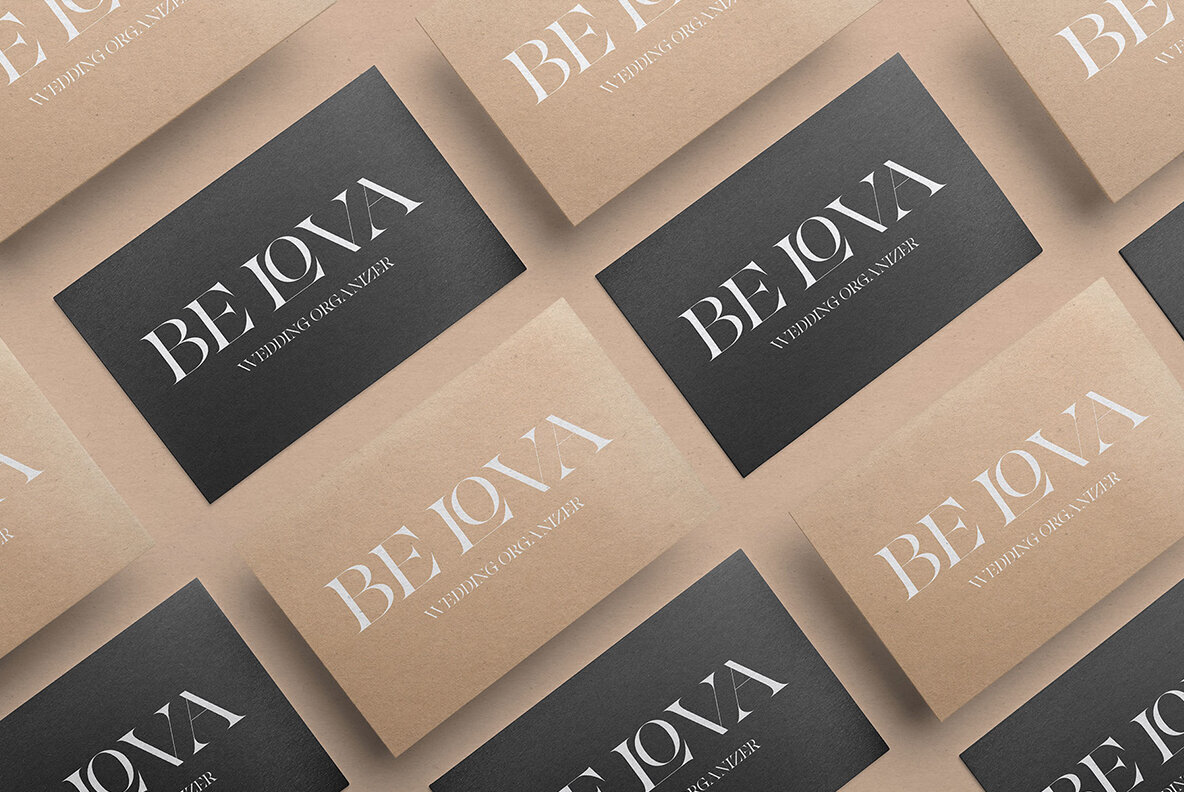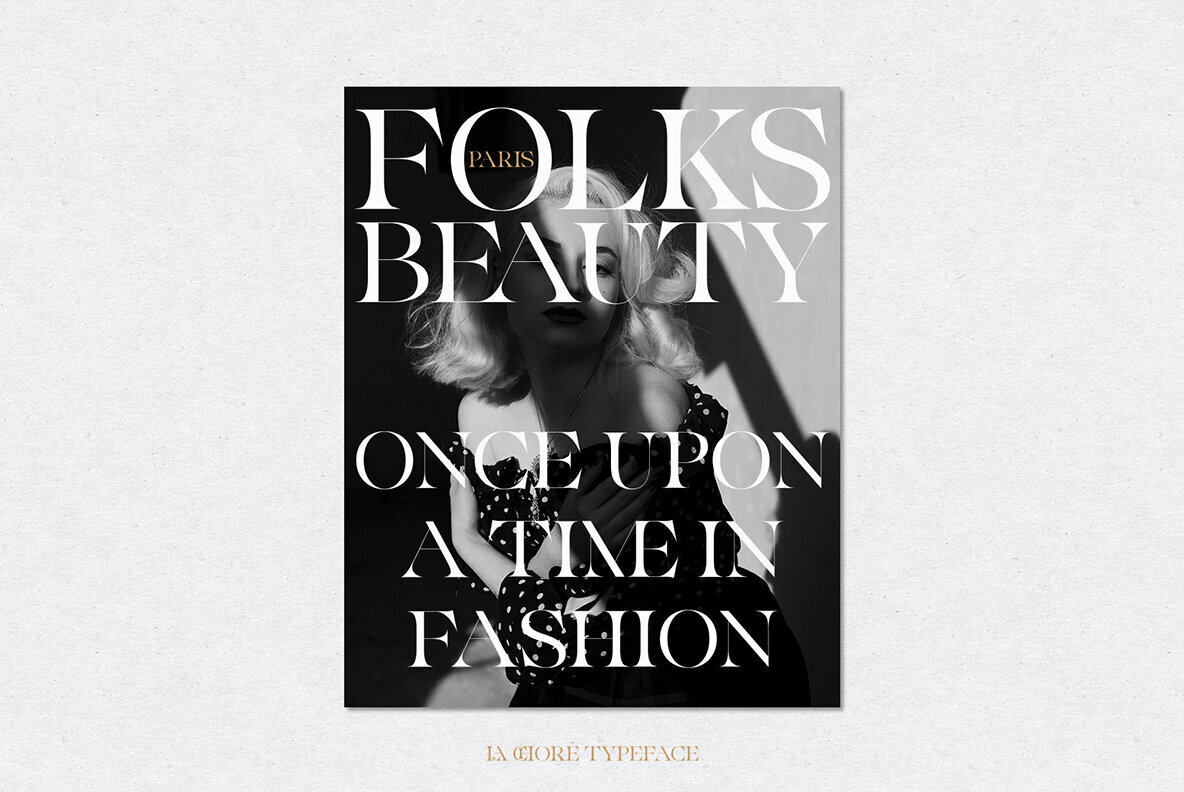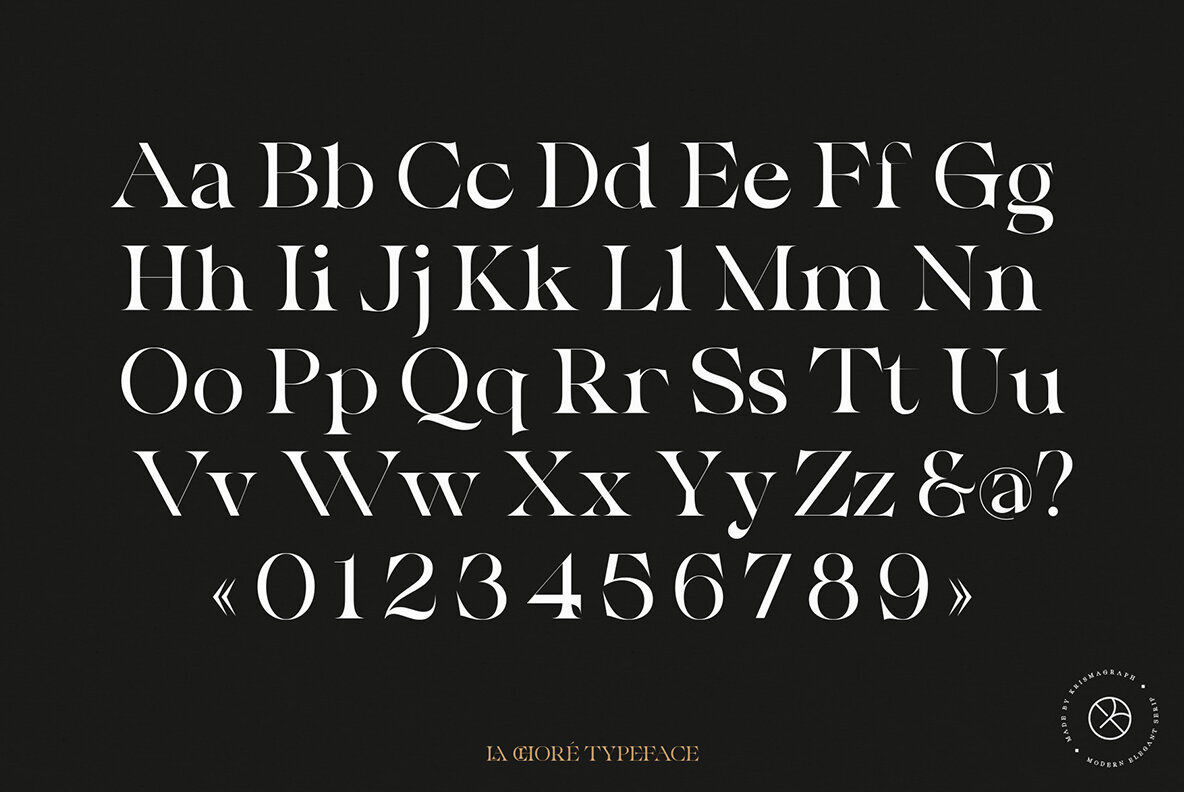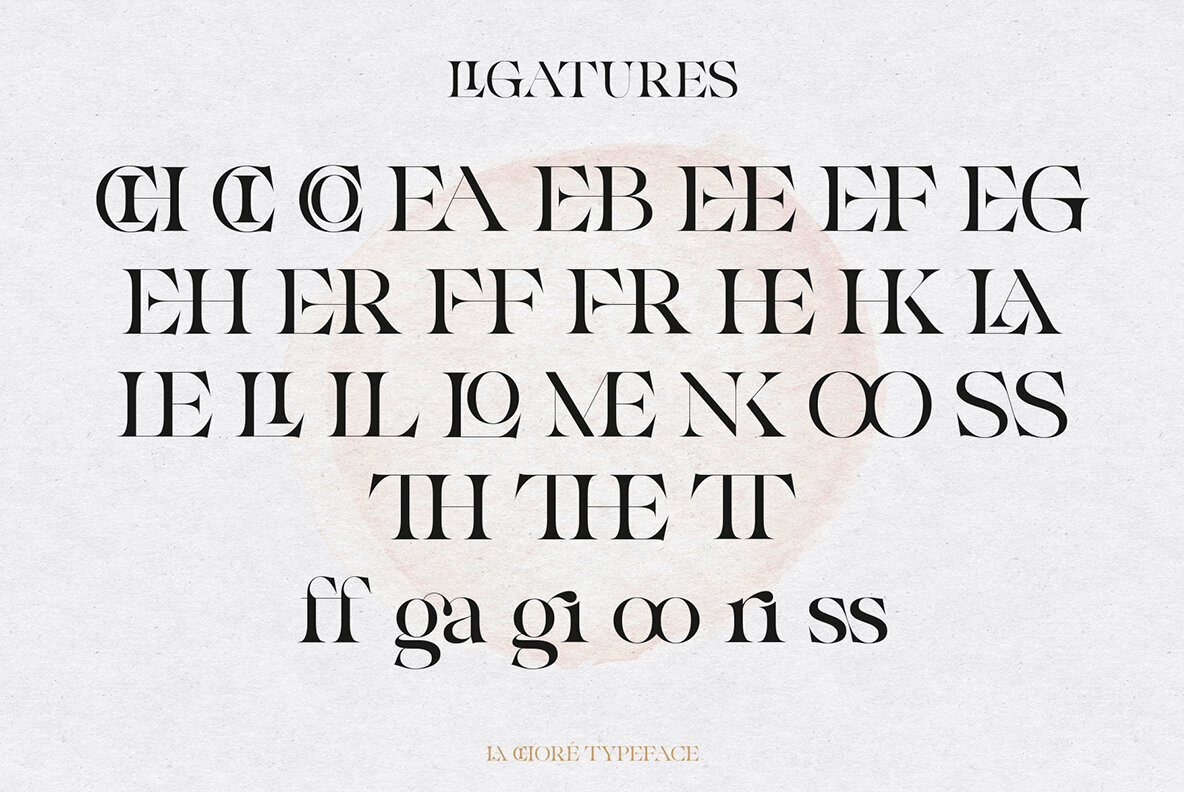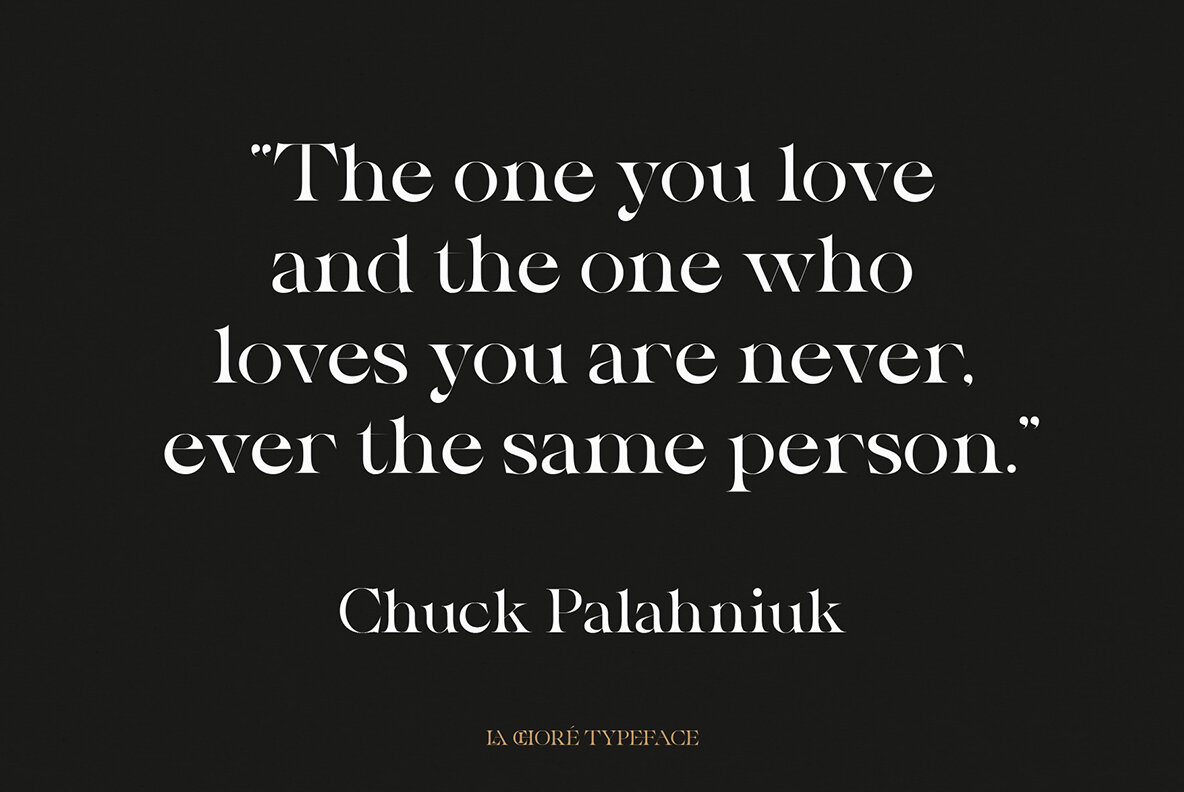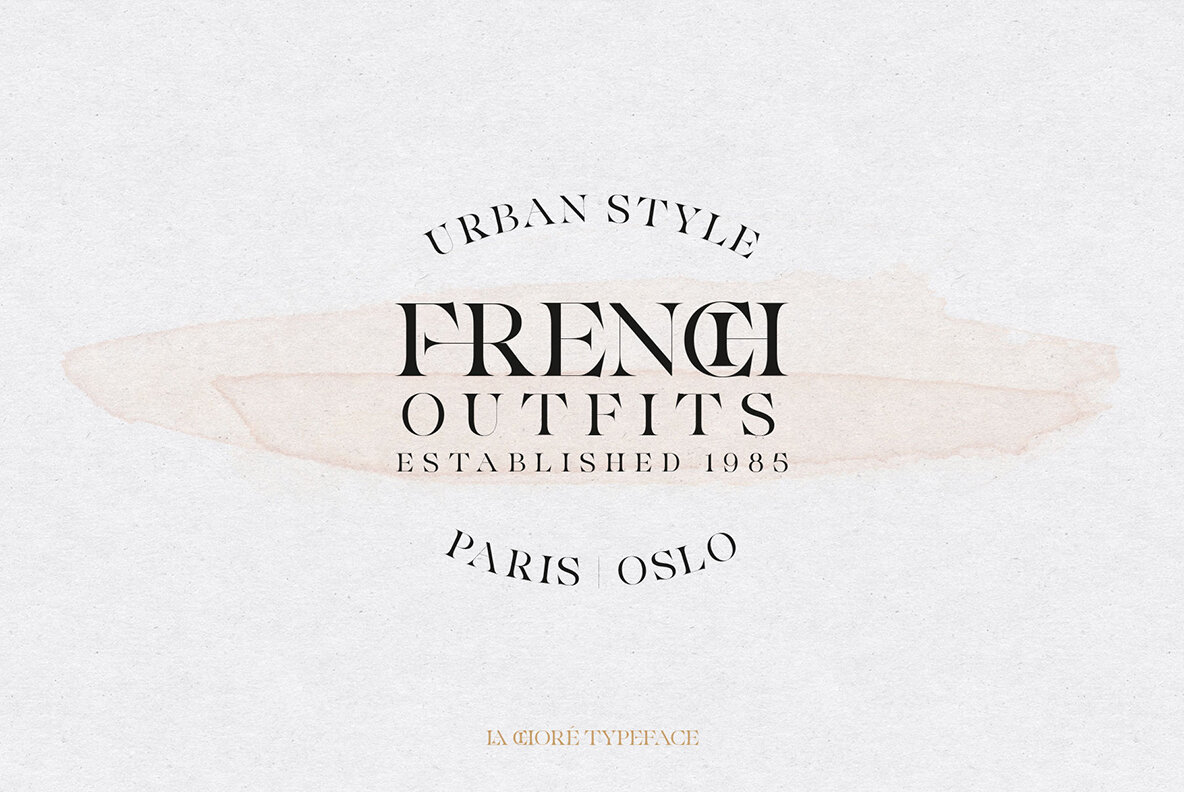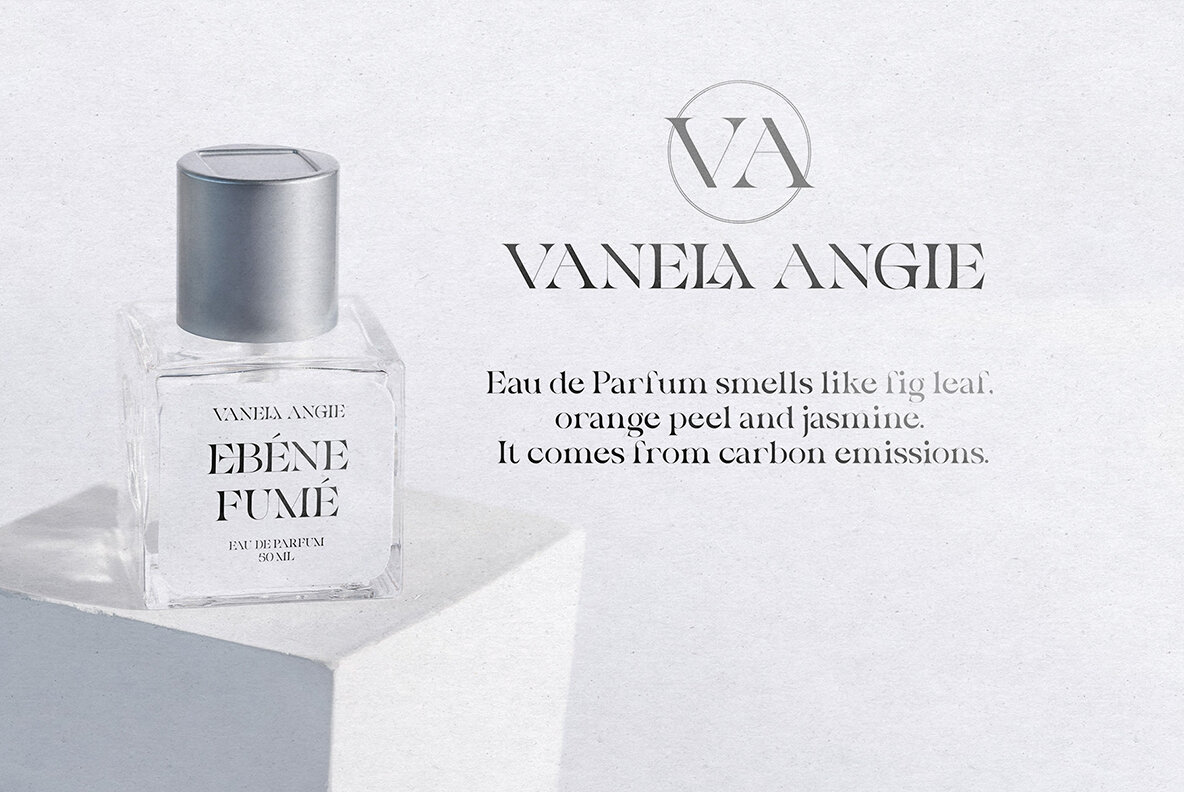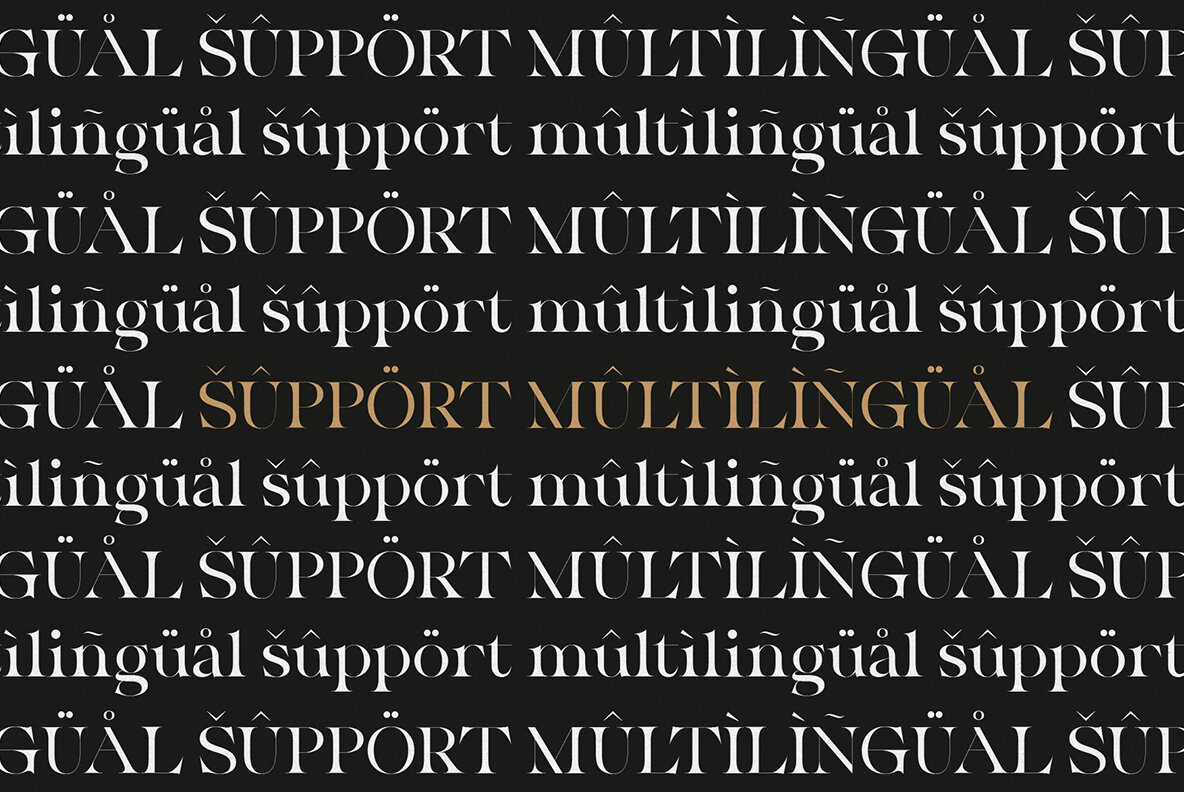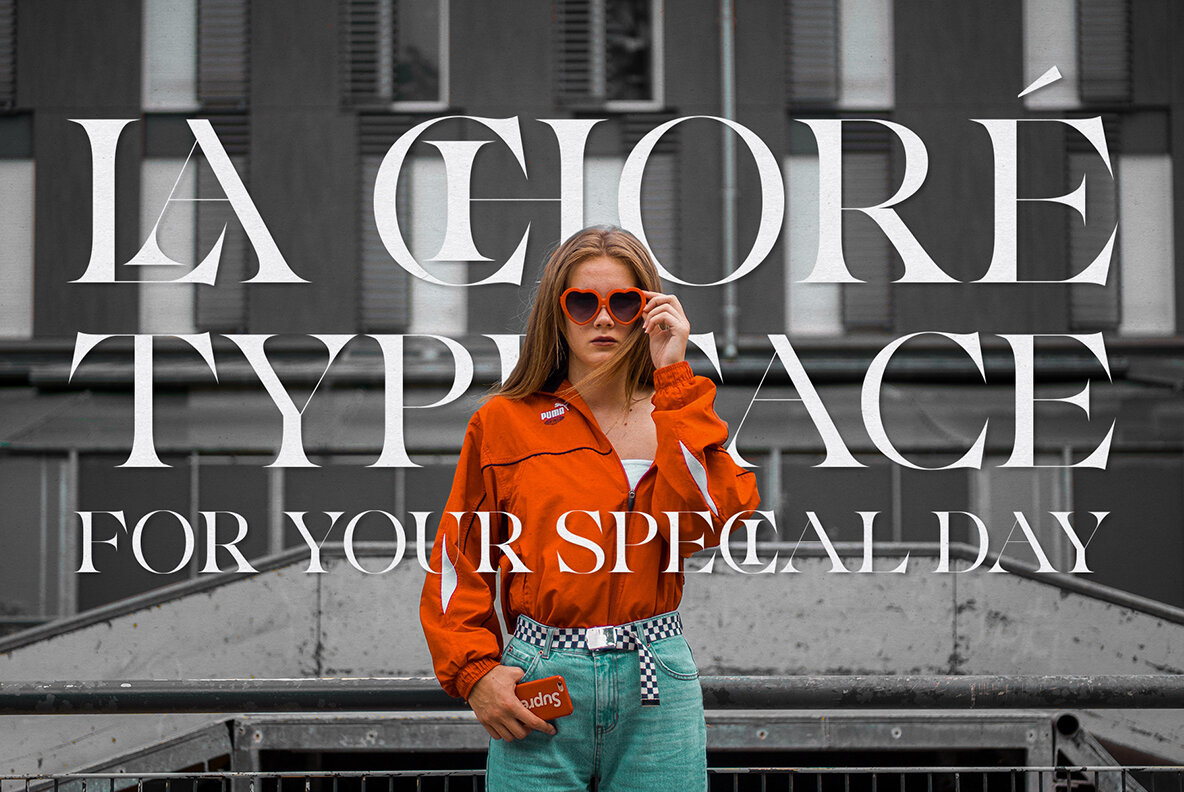
La Chore Font
La Chore Typeface Regular
La Chore, a modern and elegant serif typeface with high contrast version of the famous Didot look that has been synonymous with fashion for decades. This font includes multiple ligatures to create an old-fashioned yet sophisticated feel, perfect when you're looking into logos or using it in mastheads on magazines.
La Chair also works well as quotes across social media platforms while being fully accessible without additional design software needed!